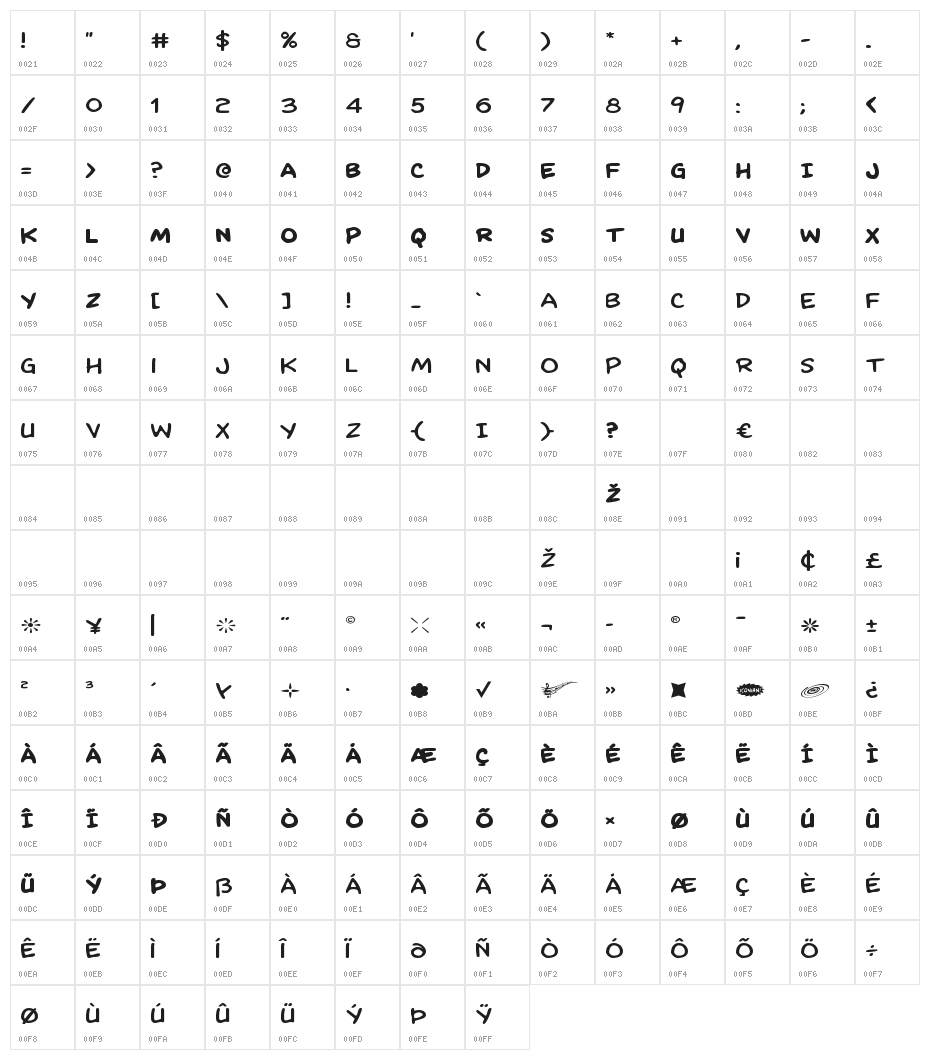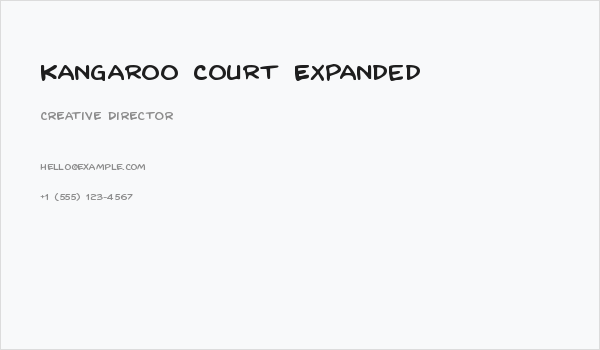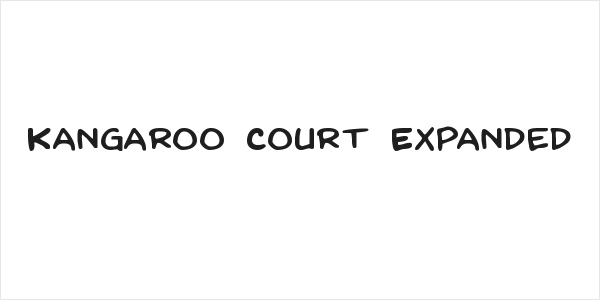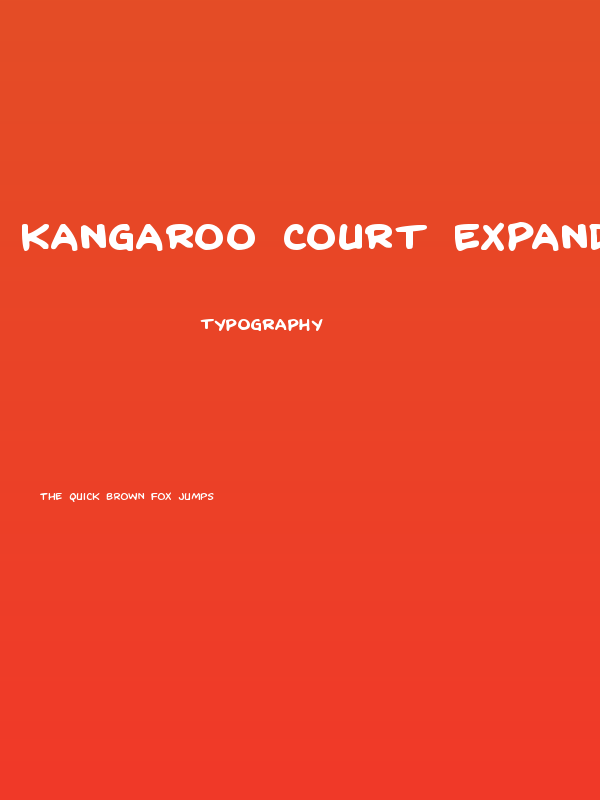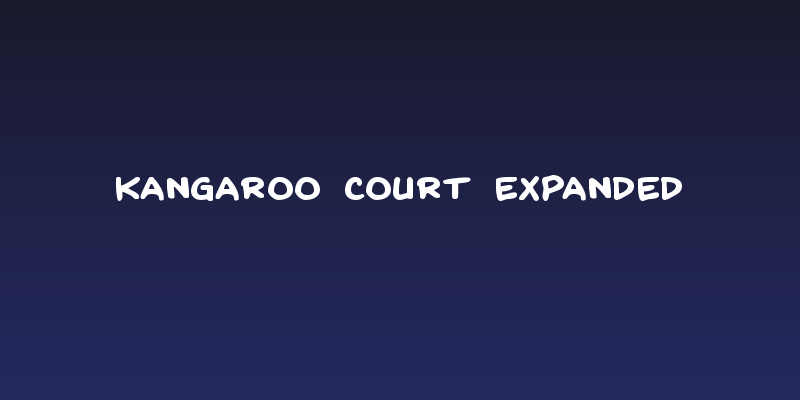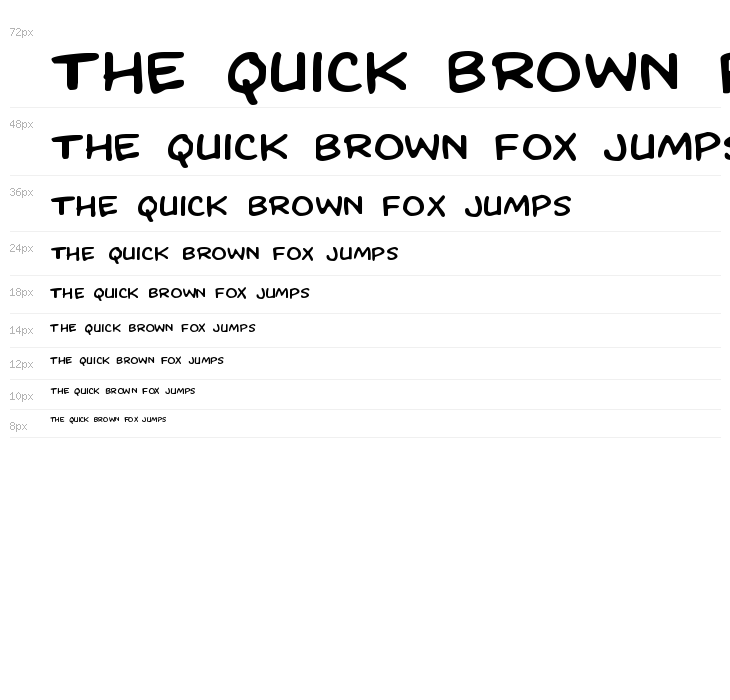
Kangaroo Court Expanded Font
Kangaroo Court Expanded Description
This playful and bold font features a hand-drawn aesthetic with rounded edges and a slightly irregular baseline, giving it a whimsical and informal appearance. The characters are wide and expansive, creating a sense of openness and friendliness. The strokes are consistent in thickness, contributing to a uniform look across all characters. This font includes both uppercase and lowercase letters, numerals, and a variety of special characters, making it versatile for different uses. Its unique style makes it stand out, while still maintaining readability.
| Proposed Projects | Ideal for children's books, playful branding, casual invitations, and creative posters. |